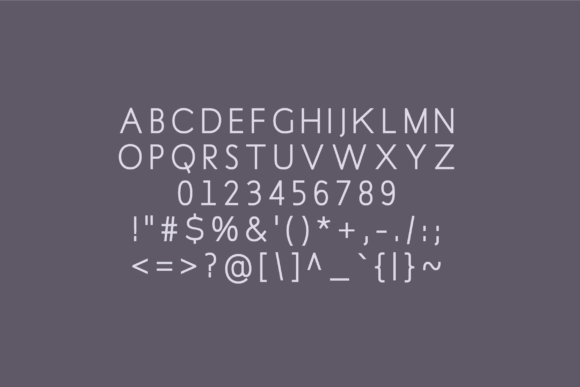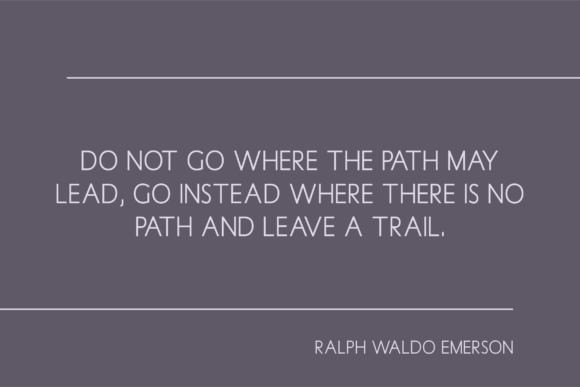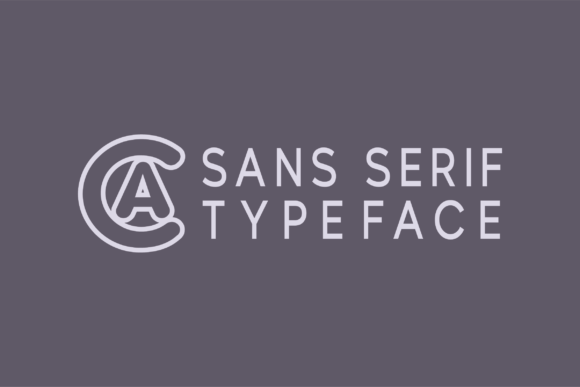
Unveiling Frostbold Font: The Ultimate Typeface for Modern Elegance
In the realm of typography, a new star has emerged, captivating the attention of designers and crafters alike. Introducing Frostbold, a sans serif typeface that seamlessly blends modernistic flair with timeless elegance. This stunning font is poised to revolutionize the way we approach visual communication, offering a versatile and sophisticated solution for a wide range of applications.
A Closer Look at Frostbold’s Features
Frostbold boasts an impressive array of features that set it apart from other typefaces. The font includes:
- Upper-case characters, carefully crafted to exude confidence and poise
- Numerals from 0-9, perfect for adding a touch of sophistication to any design
- A broad spectrum of punctuations and symbols, meticulously designed to add a dash of elegance to your creations
Endless Applications for Frostbold
Frostbold’s versatility is one of its most striking attributes. This exceptional typeface can be used across a multitude of applications, including:
- Logos: Elevate your brand’s visual identity with Frostbold’s modern and sleek design
- Wedding Invites: Add a touch of romance and sophistication to your wedding invitations, setting the tone for an unforgettable celebration
- Quotes: Inject personality and style into your quotes, making them stand out on social media, blogs, or marketing materials
- Ads: Grab attention and drive engagement with Frostbold’s bold and eye-catching design
- Print Material: Enhance the charm of your print materials, such as brochures, flyers, and posters, with Frostbold’s elegant and refined aesthetic
- Magazine Aesthetics: Take your magazine designs to new heights with Frostbold’s sophisticated and modern typeface
What Sets Frostbold Apart?
In a crowded market, Frostbold stands out from the competition due to its:
- Perfect Balance: Frostbold strikes the perfect balance between modernity and elegance, making it suitable for a wide range of design applications
- Attention to Detail: The font’s meticulous design ensures that every character, numeral, and symbol is crafted to perfection
- Effortless Versatility: Frostbold seamlessly adapts to various design contexts, allowing designers to experiment and push creative boundaries
To unlock Frostbold’s full potential, consider the following tips:
- Experiment with Pairings: Combine Frostbold with other typefaces to create visually striking contrasts and hierarchies
- Play with Sizes: Use Frostbold in various sizes to add depth and emphasis to your designs
- Emphasize White Space: Allow Frostbold’s elegance to shine by incorporating generous white space into your designs
Frostbold font is a game-changer for designers and crafters seeking to elevate their visual creations. With its perfect blend of modernity and elegance, this sans serif typeface is poised to become a staple in the world of typography. Whether you’re designing logos, wedding invites, or magazine aesthetics, Frostbold is the ultimate typeface to add a touch of sophistication and style to your work.